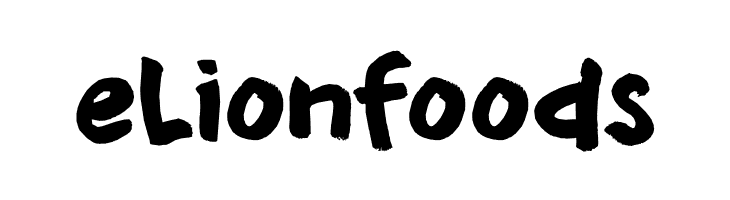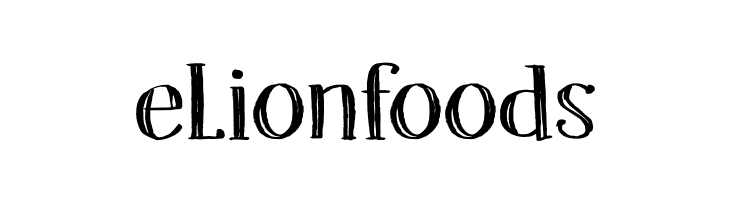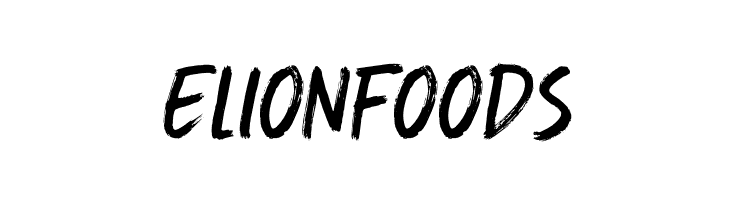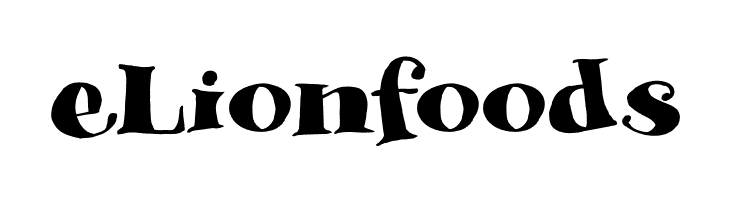
A bold, distressed font with a rebellious, hand-painted style.
A whimsical, hand-drawn font with tall, narrow letters and a natural, sketch-like style.
A bold, hand-drawn font with a rough, expressive style.
A playful, textured font with a crayon-like appearance.
A playful, spooky font with bold, irregular letterforms and thematic elements.
A playful, bold font with a chunky, hand-drawn style.
A dynamic blackletter font with italicized, high-contrast strokes.
A bold, condensed blackletter font with ornate, angular letterforms.
A bold, condensed, and distorted decorative font with a jagged, thorn-like texture.
A bold, italicized blackletter font with sharp, decorative strokes.
An ornate Blackletter font with sharp, angular lines and high contrast.
A bold, italicized blackletter font with condensed, angular strokes.
A pixelated, blocky font with a retro digital aesthetic.